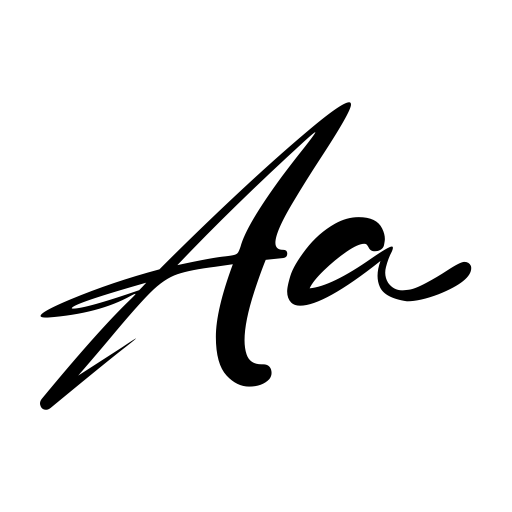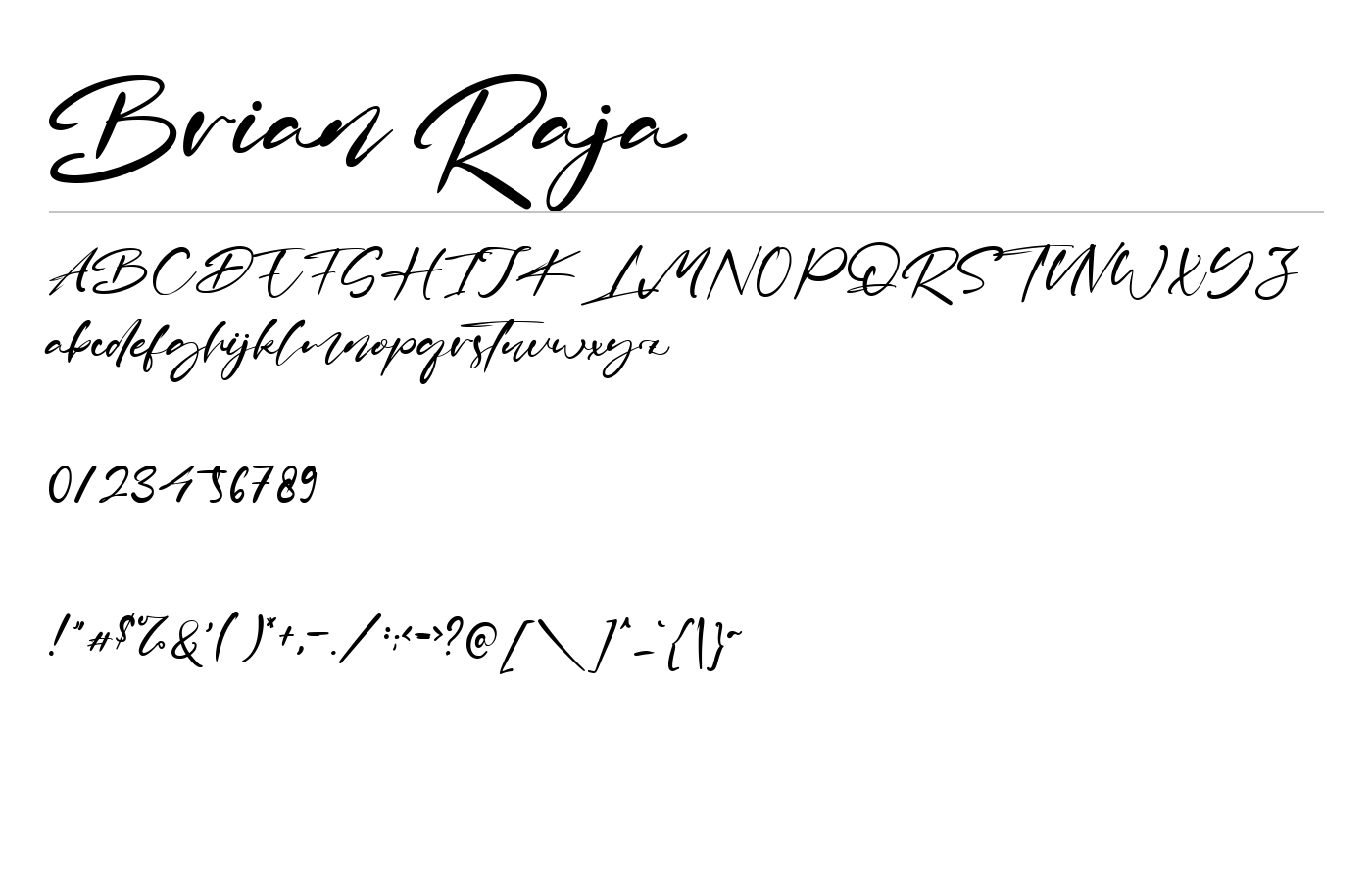
Brian Raja is an elegant, handwritten script font with a smooth, flowing style that combines a natural calligraphic feel with modern sophistication. Its moderate weight and tall, slightly condensed letterforms make it perfect for adding a personal, stylish touch to logos, invitations, and branding projects where a refined yet approachable look is desired. This font works beautifully in design contexts that call for a graceful, artistic expression without sacrificing legibility.
Brian Raja Font
About Brian Raja Font
| Font family | Brian Raja Font |